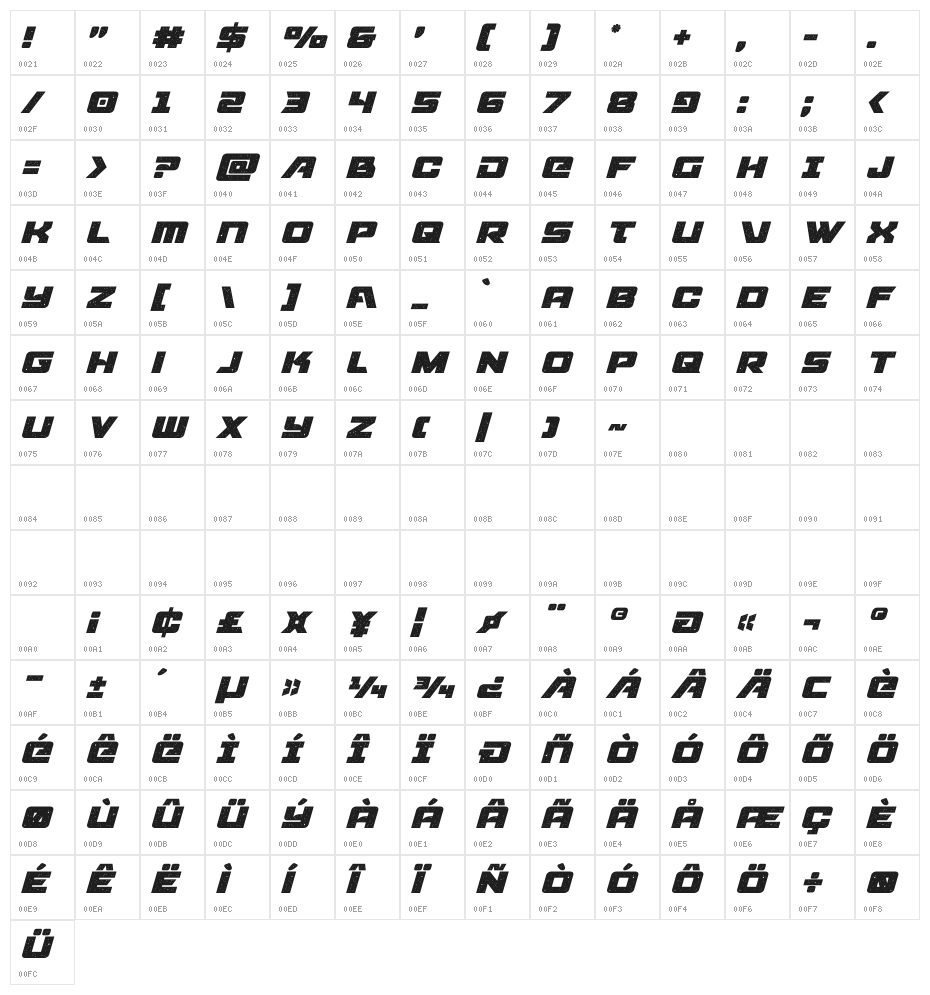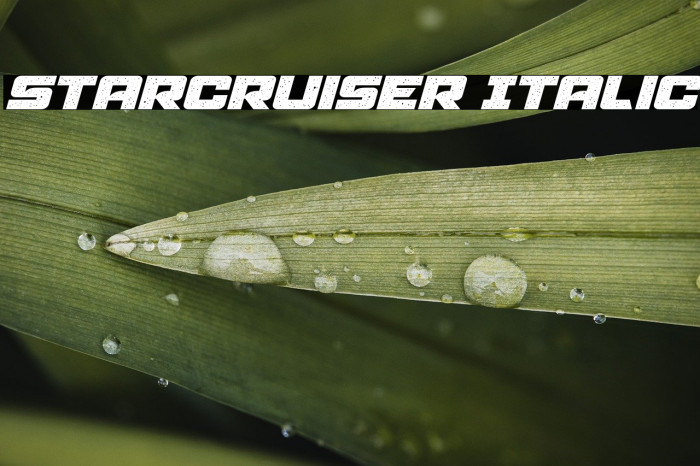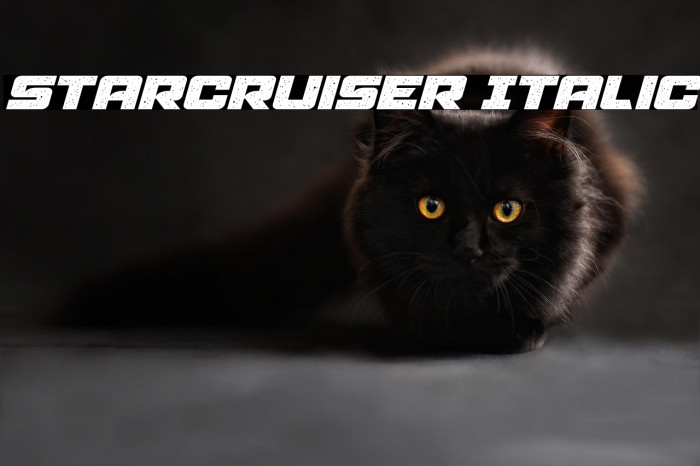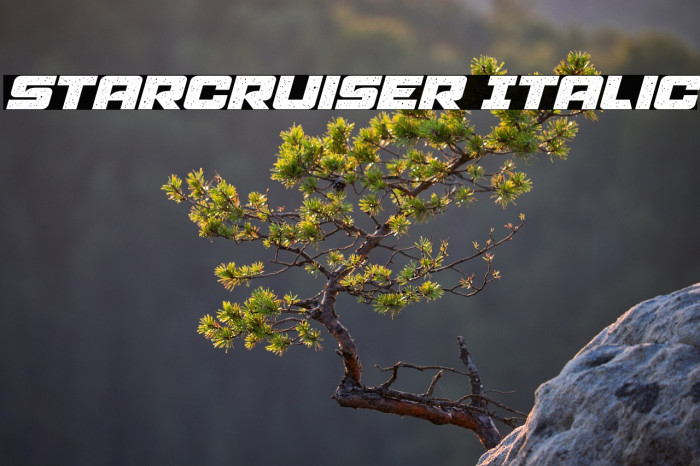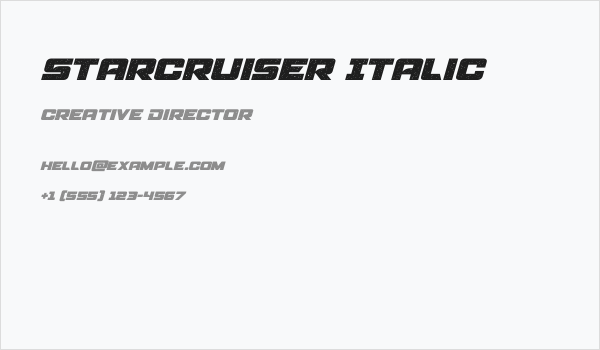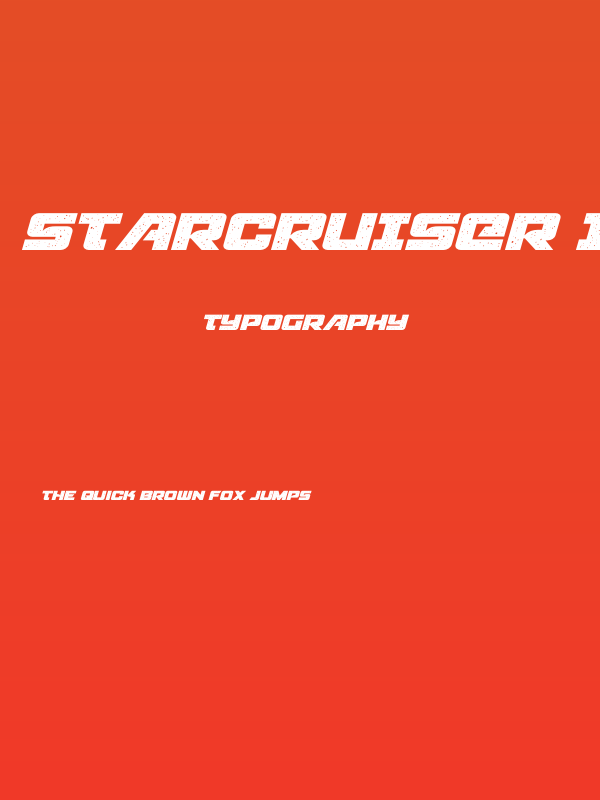
Starcruiser Italic Font
Starcruiser Italic Description
This font features a futuristic and bold design with a distinct italic slant, giving it a dynamic and forward-moving appearance. The characters are constructed with a solid, block-like structure, and are filled with a starry pattern that adds a unique, cosmic texture. The uppercase and lowercase letters maintain a consistent style, with sharp angles and clean lines that enhance readability while maintaining a decorative flair. The numerals and special characters follow the same stylistic approach, ensuring uniformity across all glyphs. This font is ideal for projects that require a modern and space-themed aesthetic.
| Proposed Projects | Ideal for sci-fi themed posters, video game titles, and space-related branding. |